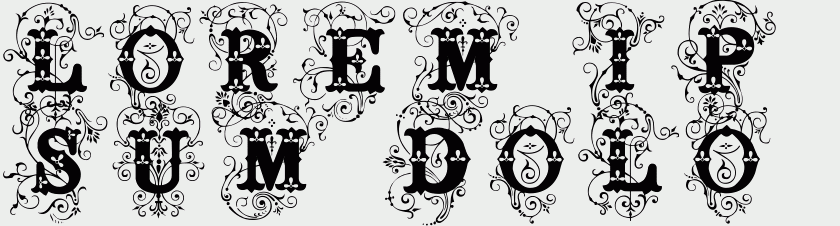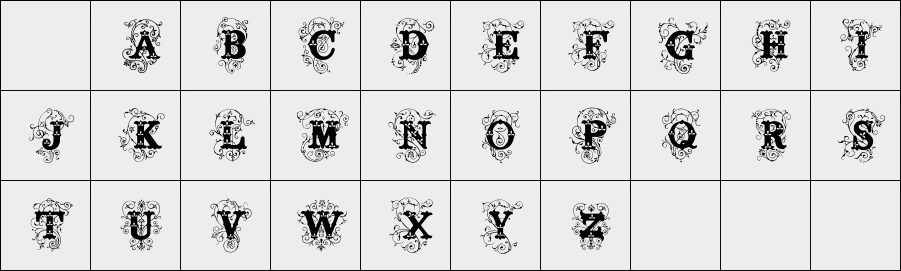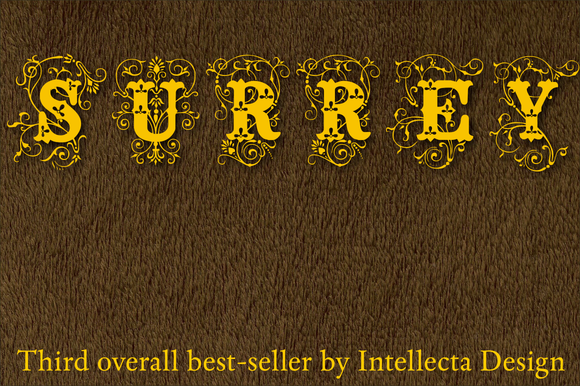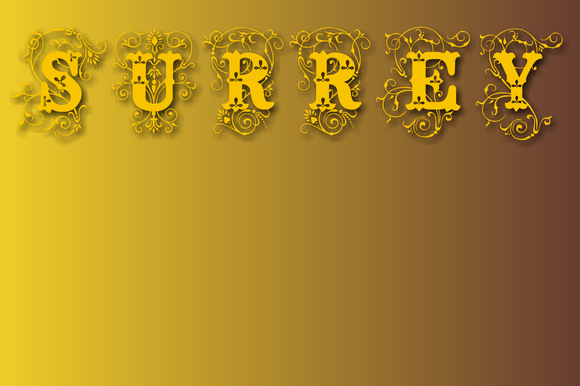
Surrey
Surrey is a decorative font, all uppercase letter designs, great display face for headers and antique-like projects. It's another Intellecta's best-seller, a classic vintage design remastered with our feeling to ancient things.